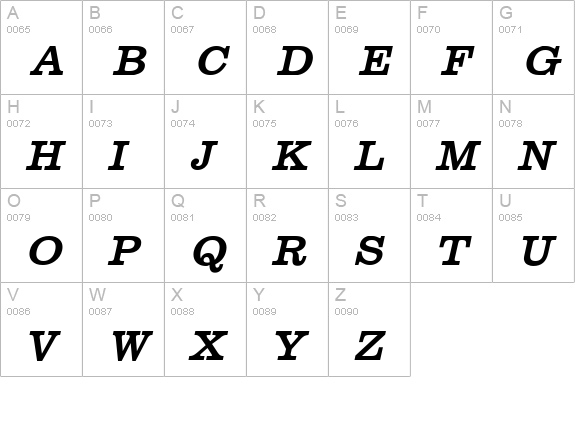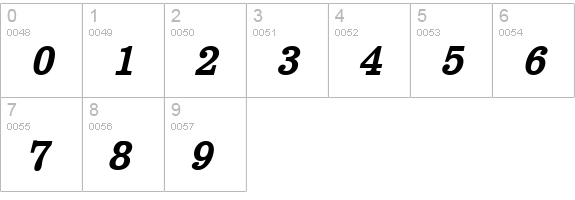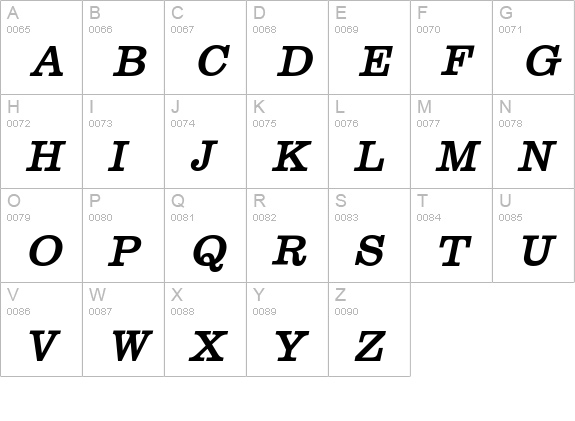
Broadcast Bold Italic Font Details
Broadcast Bold Italic is a strong, high-contrast, italic variant in the Broadcast typeface family \xE2\x80\x94 well suited to headlines, attention-grabbing titles, and strong calls-to-action.
Broadcast Bold Italic is a modern and stylish font that exudes confidence and sophistication. Its bold and italicized design makes it stand out, perfect for adding a touch of flair to any project. Whether you're designing a poster, branding materials, or a website, this font will surely make a bold statement. And the best part? It's completely free to download at FontsMarket.com! You can easily access this versatile font and elevate your designs without any cost. Don't miss out on the opportunity to enhance your projects with Broadcast Bold Italic - download it now and let your creativity shine!